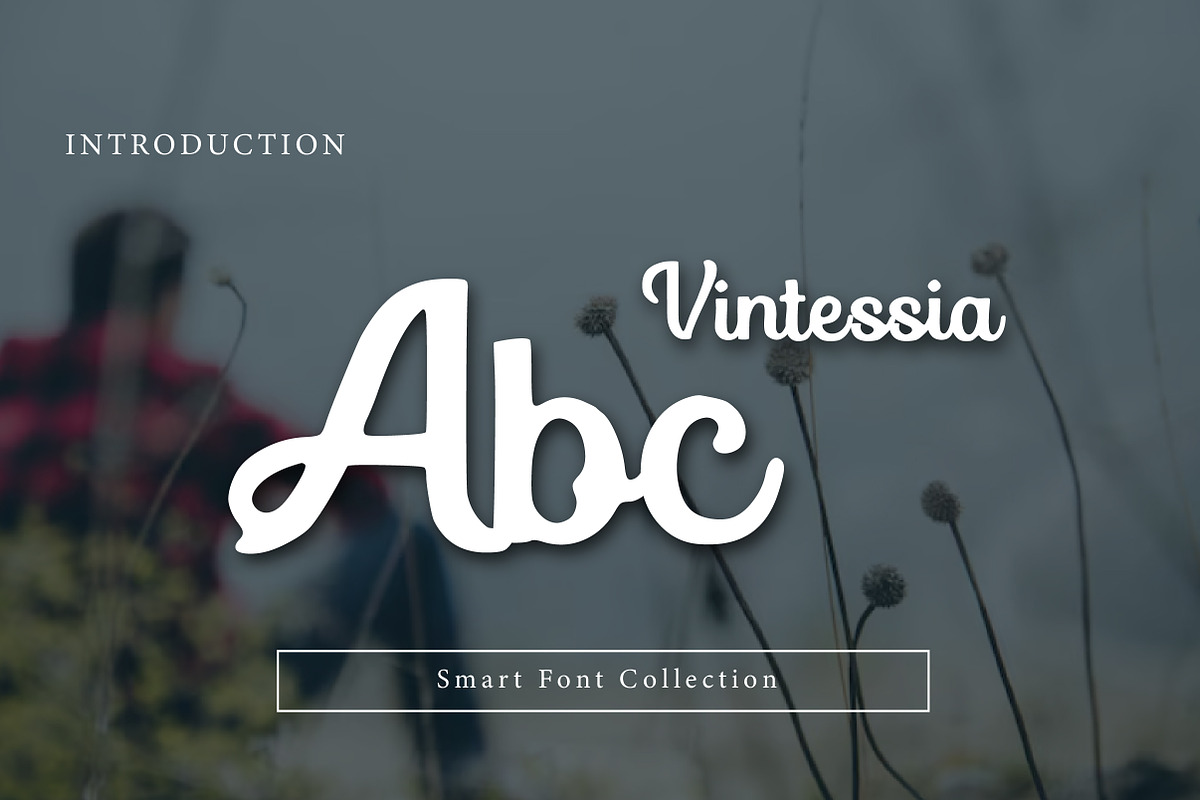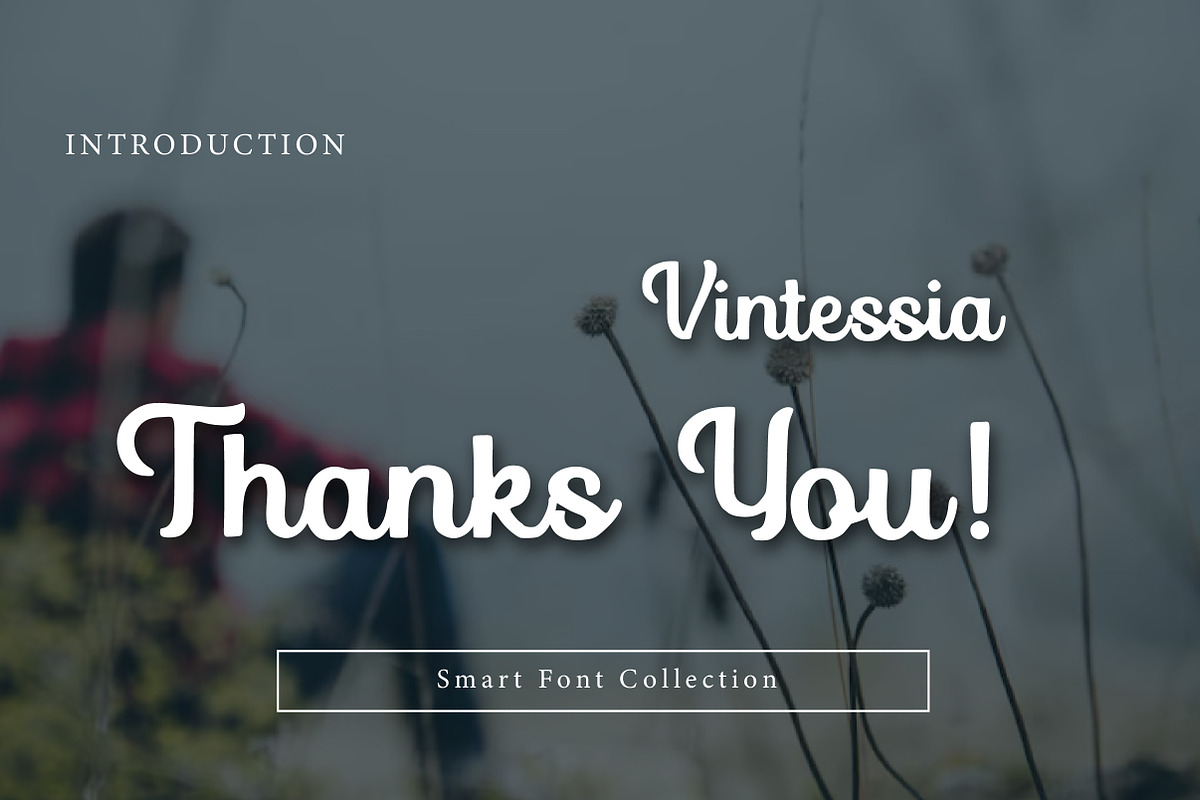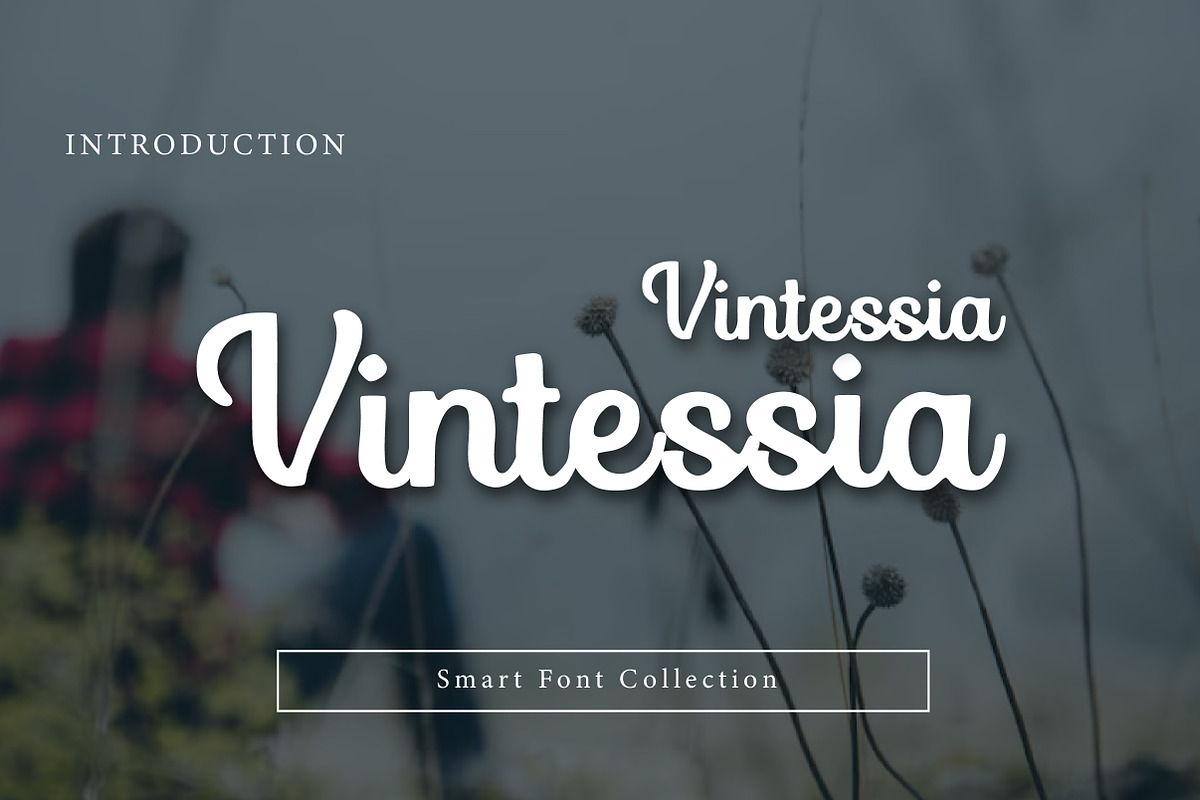
Vintessia
Vintessia is a stylish, smooth, and vintage-inspired script display font designed to bring classic charm and elegant personality to your typography. With its bold flowing strokes, soft curves, and retro handwritten feel, this font is perfect for designs that need a timeless, classy, and signature-style look.
Inspired by vintage signage and classic branding, Vintessia works beautifully for logos, boutique branding, wedding invitations, product packaging, labels, café menus, social media designs, quote graphics, and retro-themed posters. The letterforms feel confident and elegant, making it a great choice for premium branding while still keeping a warm handwritten touch.
Whether you’re building a vintage brand identity, designing a stylish logo, creating elegant packaging, or crafting romantic invitation typography, Vintessia adds a beautiful signature look that feels both nostalgic and modern. It performs best in display sizes for headlines, logos, and brand names where its script details can shine.